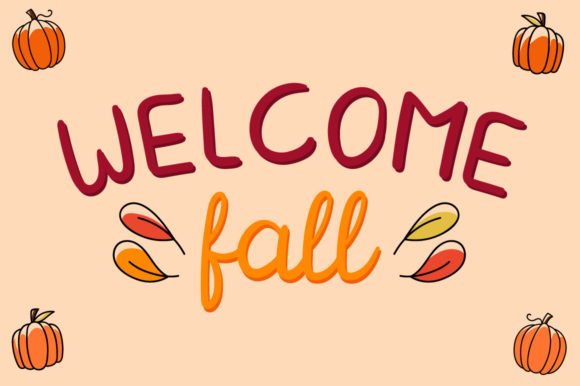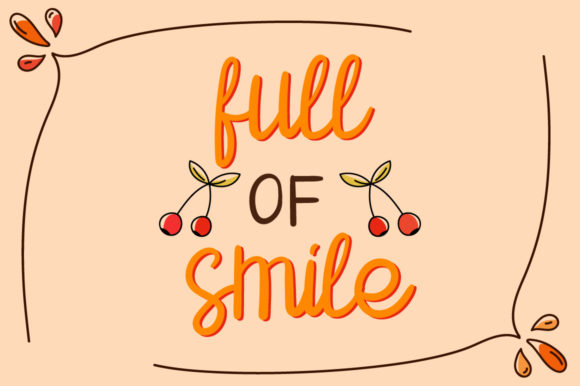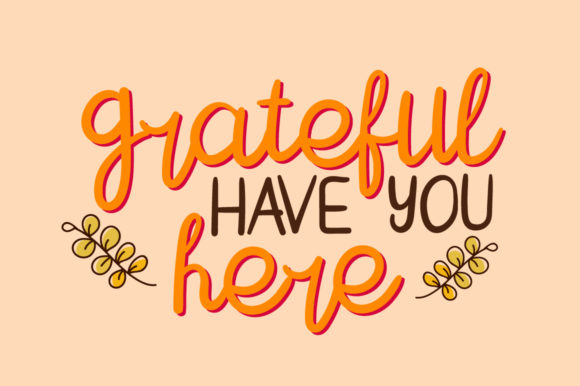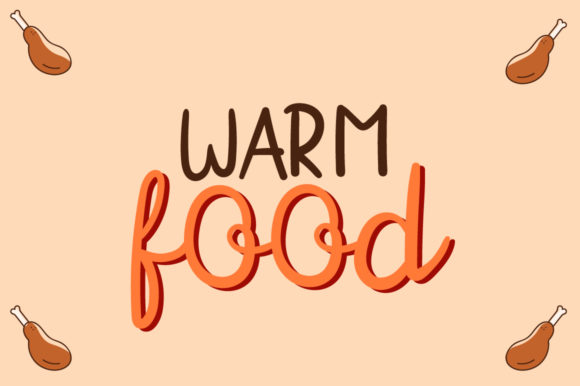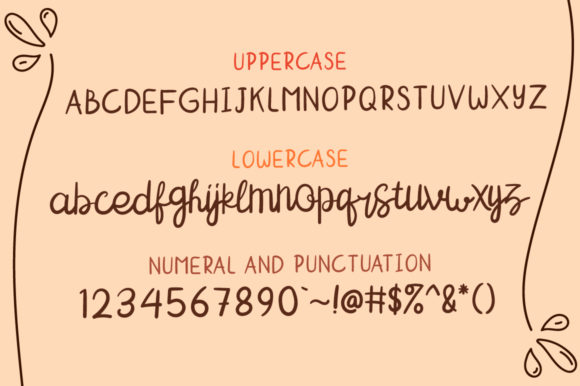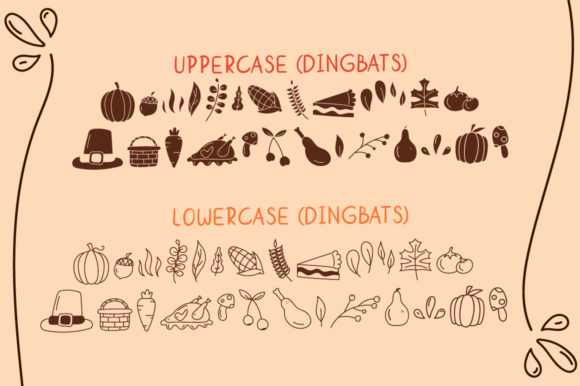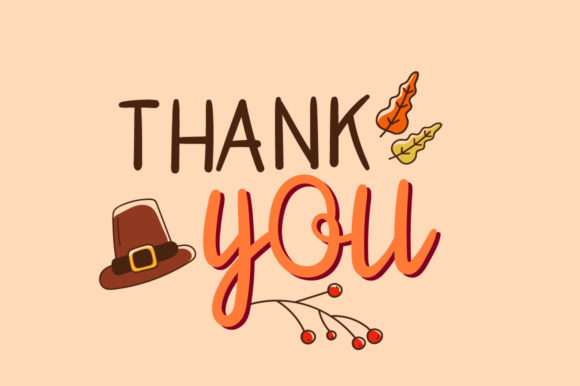
HomeScript FontsThankful Sunday Font Script Fonts Thankful Sunday Font FacebookXPinterestWhatsApp Thankful Sunday Font Poster 2 Thankful Sunday Font Poster 3 Thankful Sunday Font Poster 4 Thankful Sunday Font Poster 5 Thankful Sunday Font Poster 6 Thankful Sunday Font Poster 7 Thankful Sunday Font Poster 8 About Thankful Sunday Font The Thankful Sunday is a handwritten script font. It includes beautiful dingbats with a thanksgiving theme. DOWNLOAD ON CREATIVE FABRICAThis font is sold and delivered by Creative Fabrica. Font Canyon may earn a commission if you buy through this link. People also explored Lovely Romantic Font Emerthon Font Sahmettan Font Spring Holiday Font Teacher Font Beterdam Smith Font Beauty Brilliant Font Qailitha Script Font Planners Font 363 0 TagsThankful Sunday Font Previous articleSlama FontNext articleMagic Font LEAVE A REPLY Cancel reply Comment: Please enter your comment! Name:* Please enter your name here Email:* You have entered an incorrect email address! Please enter your email address here Website: Save my name, email, and website in this browser for the next time I comment. Personal Use Free Bonifaciy Personal Use Free Read more about this font Sileighty Personal Use Free Read more about this font Rozalyn Personal Use Free Read more about this font Santhony Personal Use Free Read more about this font BLOG The 10 Best Handwriting Fonts to Add Personality to Your Designs 10 of the Best Handwriting Fonts for Adding Personality to Your Designs There will undoubtedly be no other better choice than handwriting fonts to give... Free vs Paid Fonts: Why Investing in Premium Fonts Is Worth It Fonts That Capture the Spirit of New York City To increase your work productivity, choose the most readable fonts.